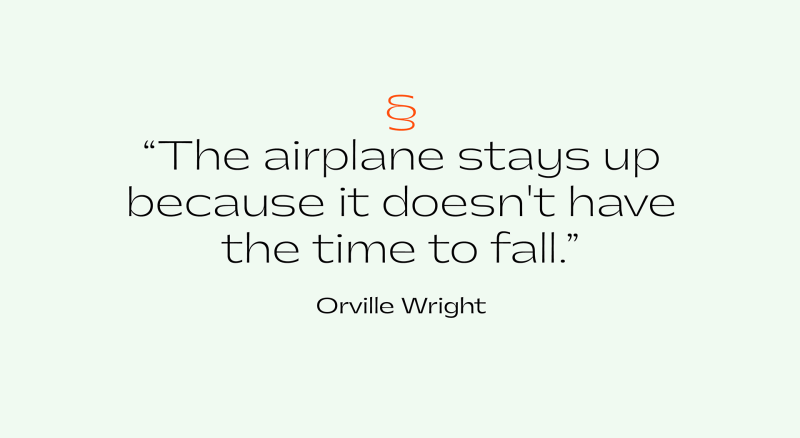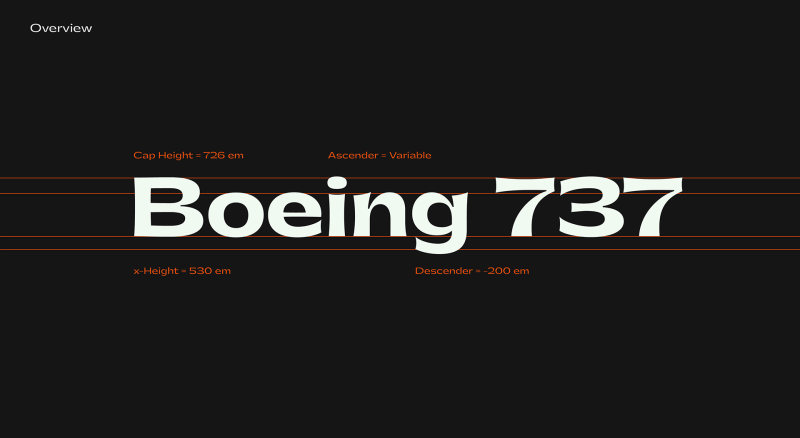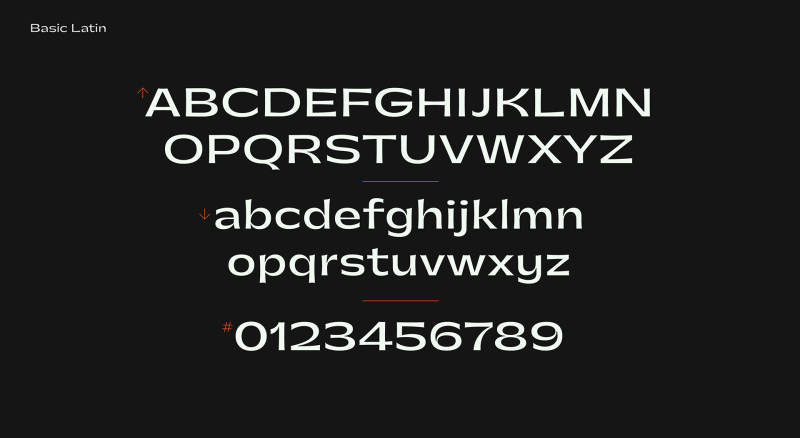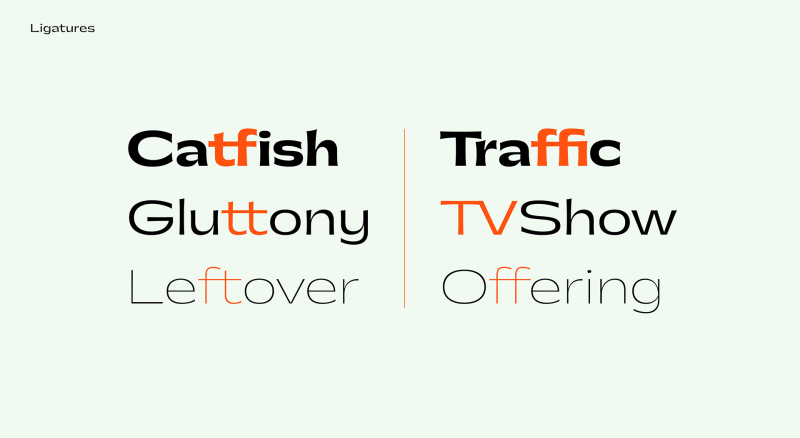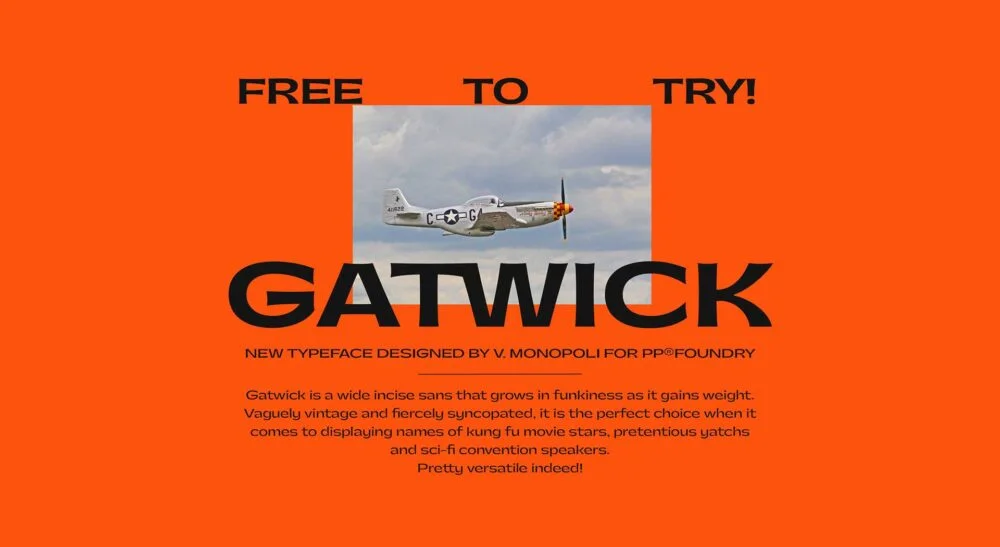
Gatwick Font
Gatwick Font is a wide incise sans that grows in funkiness as it gains weight. Vaguely vintage and fiercely syncopated, it is the perfect choice when it comes to displaying names of kung fu movie stars, pretentious yachts, and sci-fi convention speakers. Pretty versatile indeed!
Gatwick Font is a Sans Serif Fonts font that brings a professional and versatile look to your projects. Gatwick Font is a wide incise sans that grows in funkiness as it gains weight.